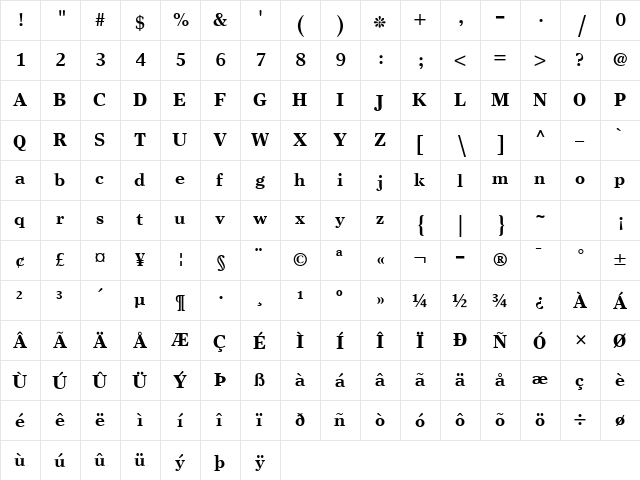
Yakout Linotype Bold Font Preview
Yakout Linotype Bold
Yakout Linotype Bold Font Details
| Foundry | Linotype GmbH |
| Designer | Linotype Design Studio |
Design Context for Yakout Linotype Typeface
Yakout Linotype takes a measured approach to typography — its balanced proportions and neutral character make it a reliable workhorse for both digital and print work. The heavy weight commands attention and anchors typographic hierarchies.